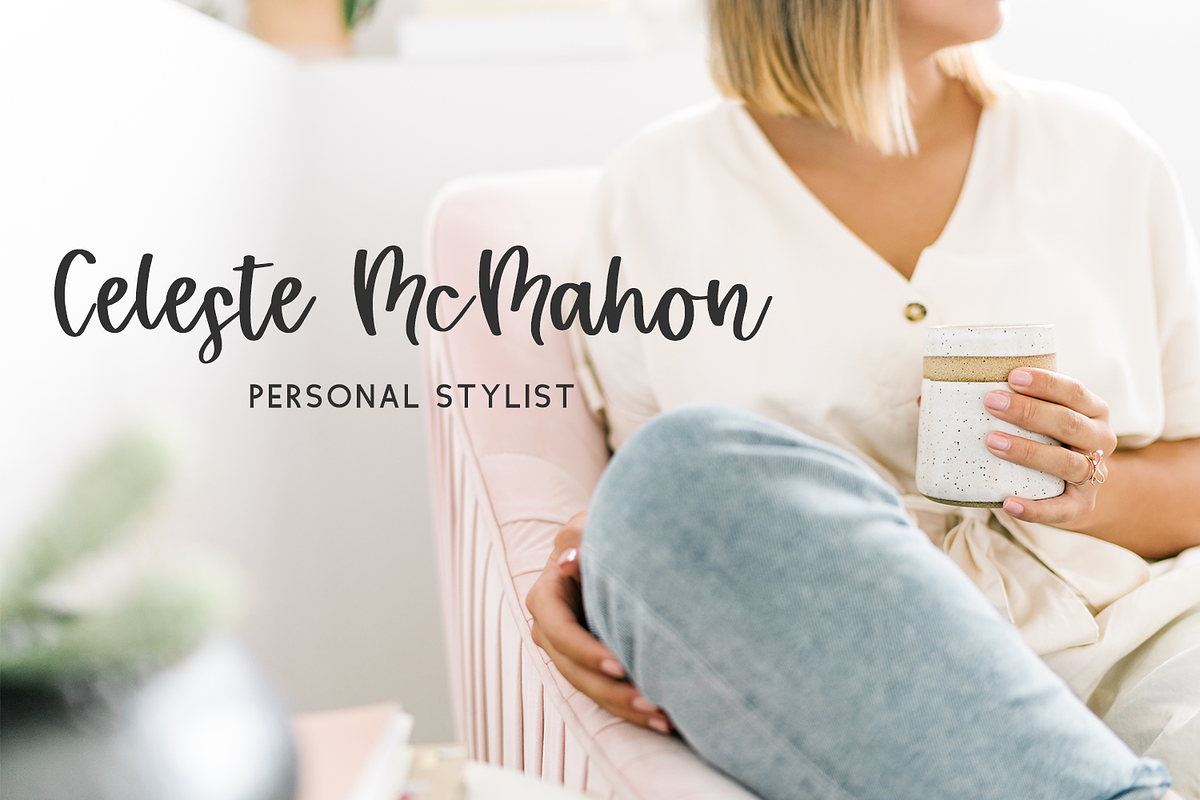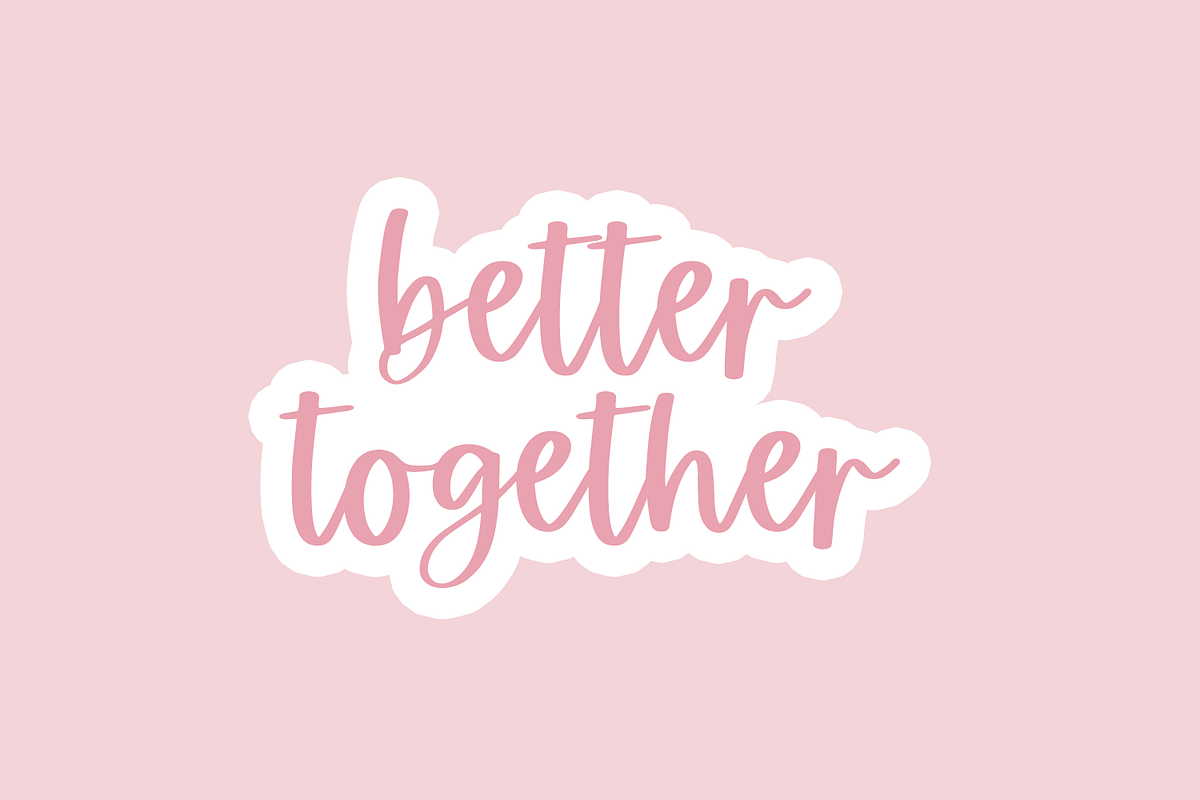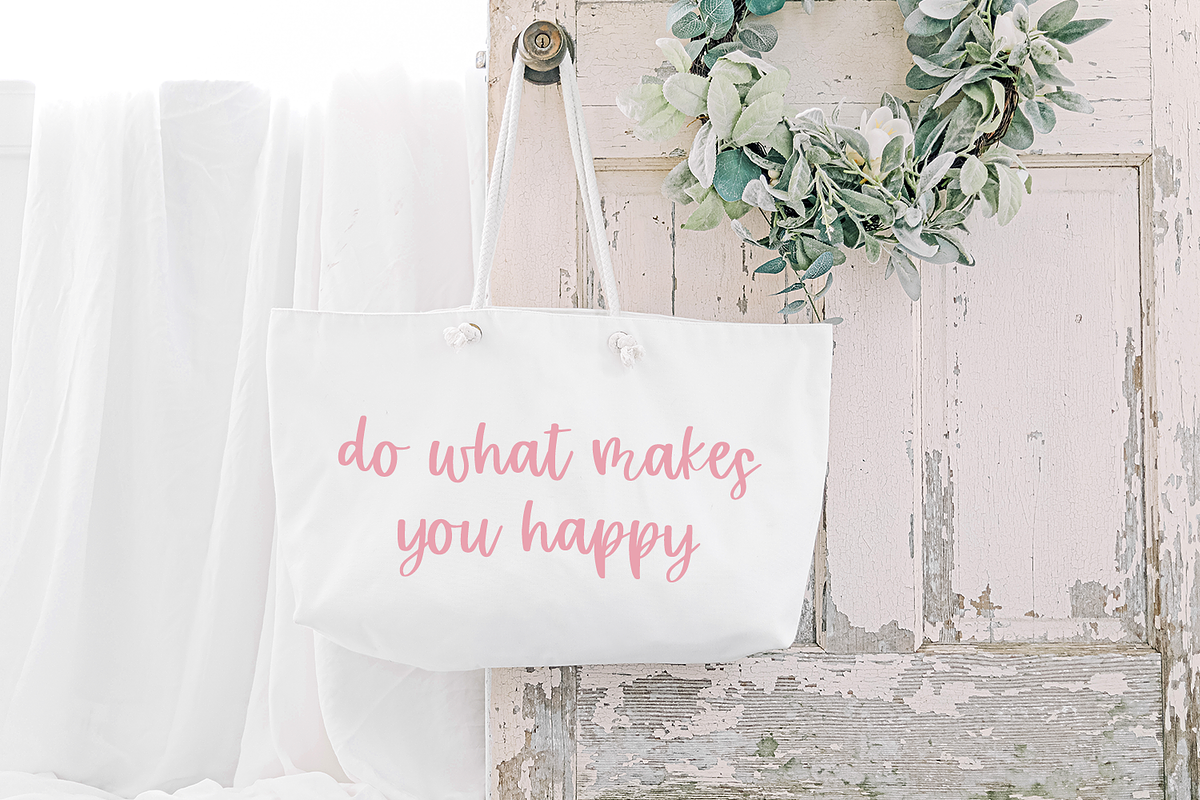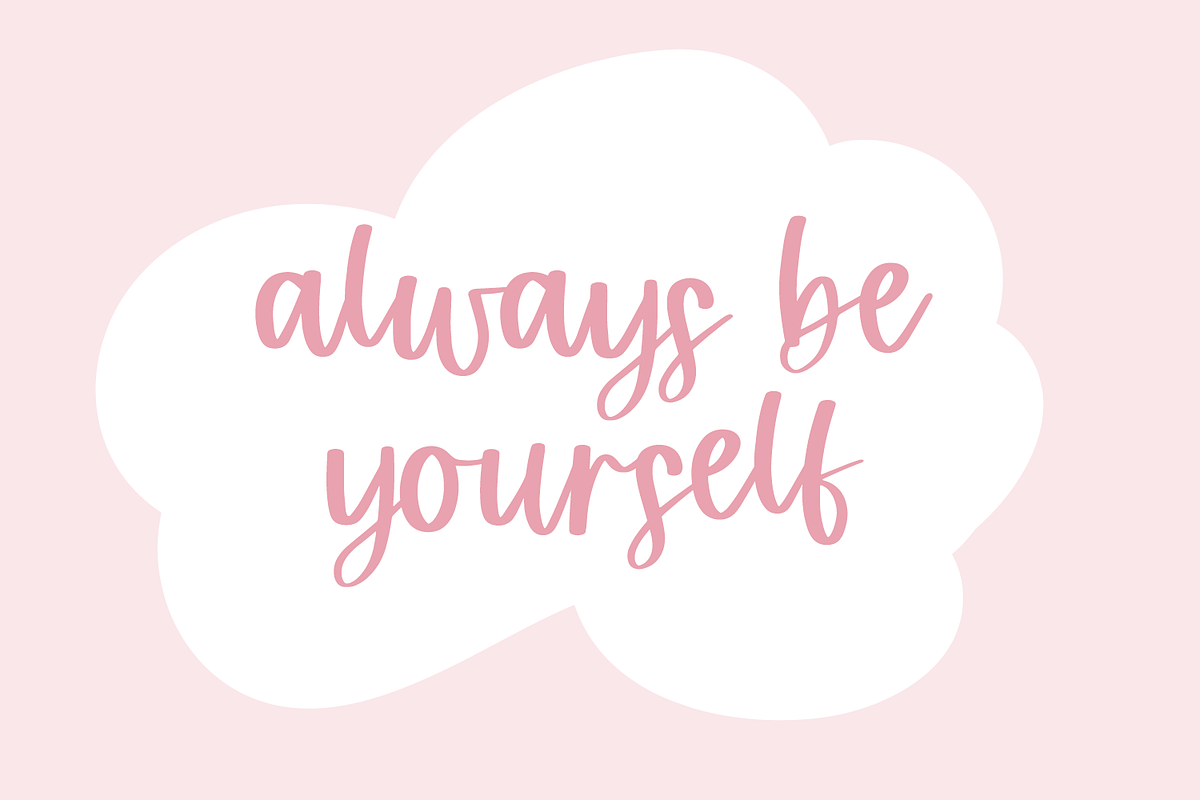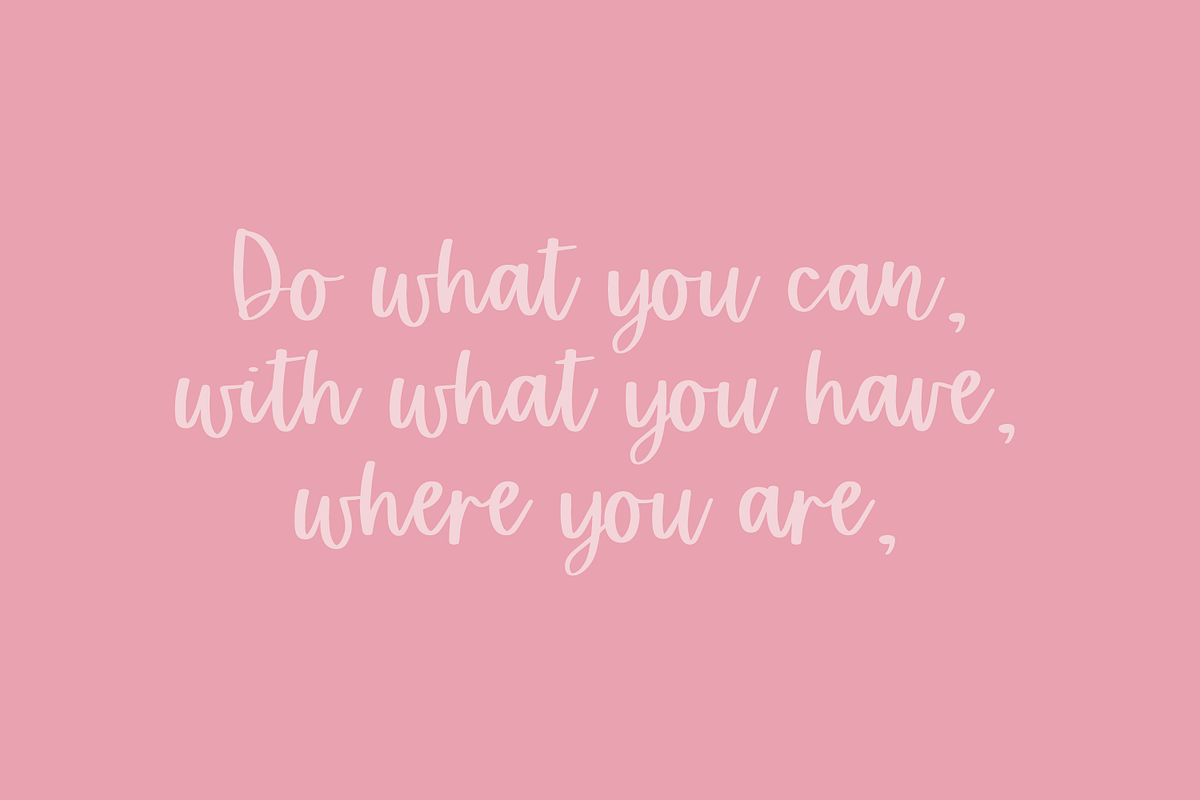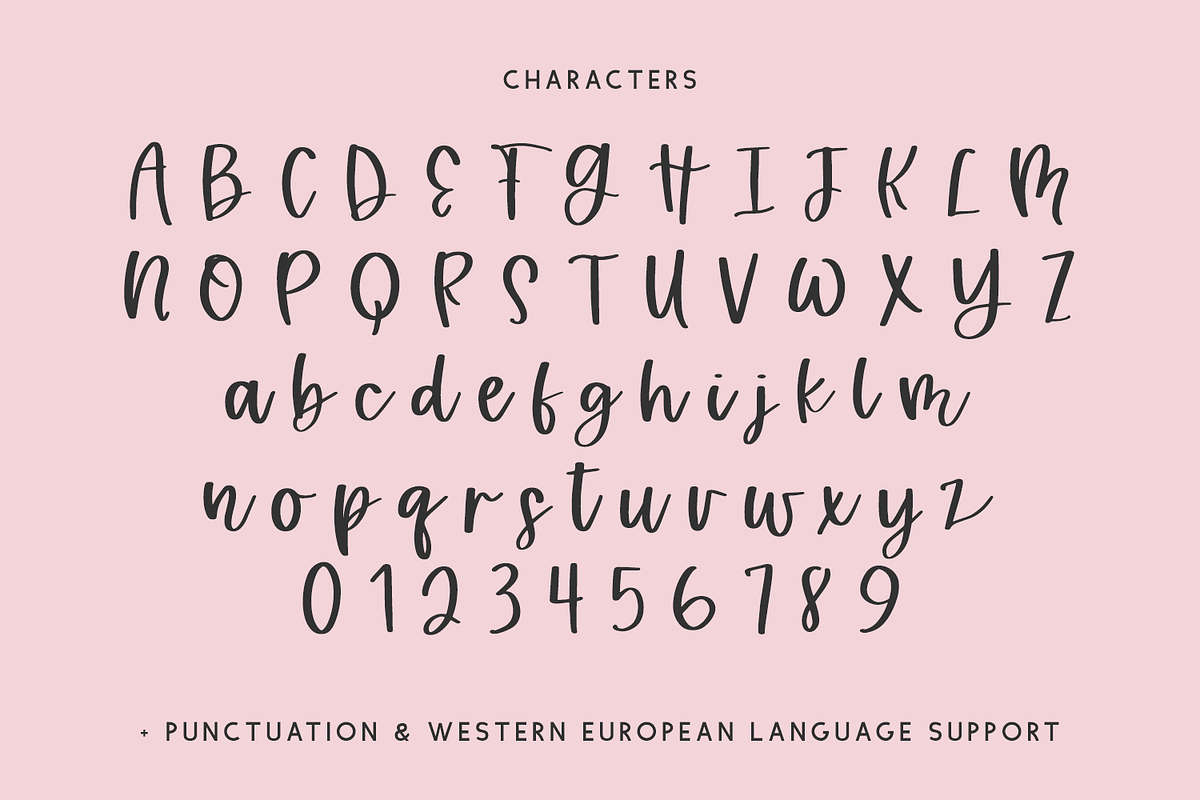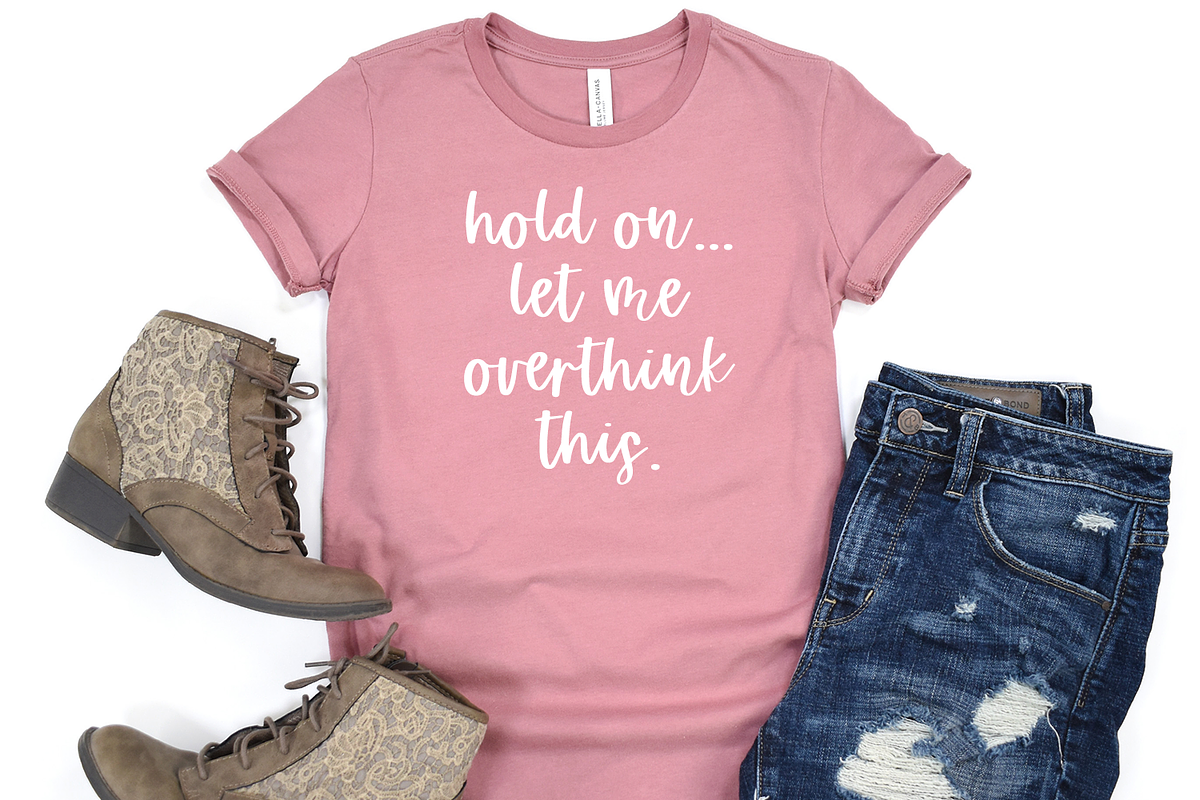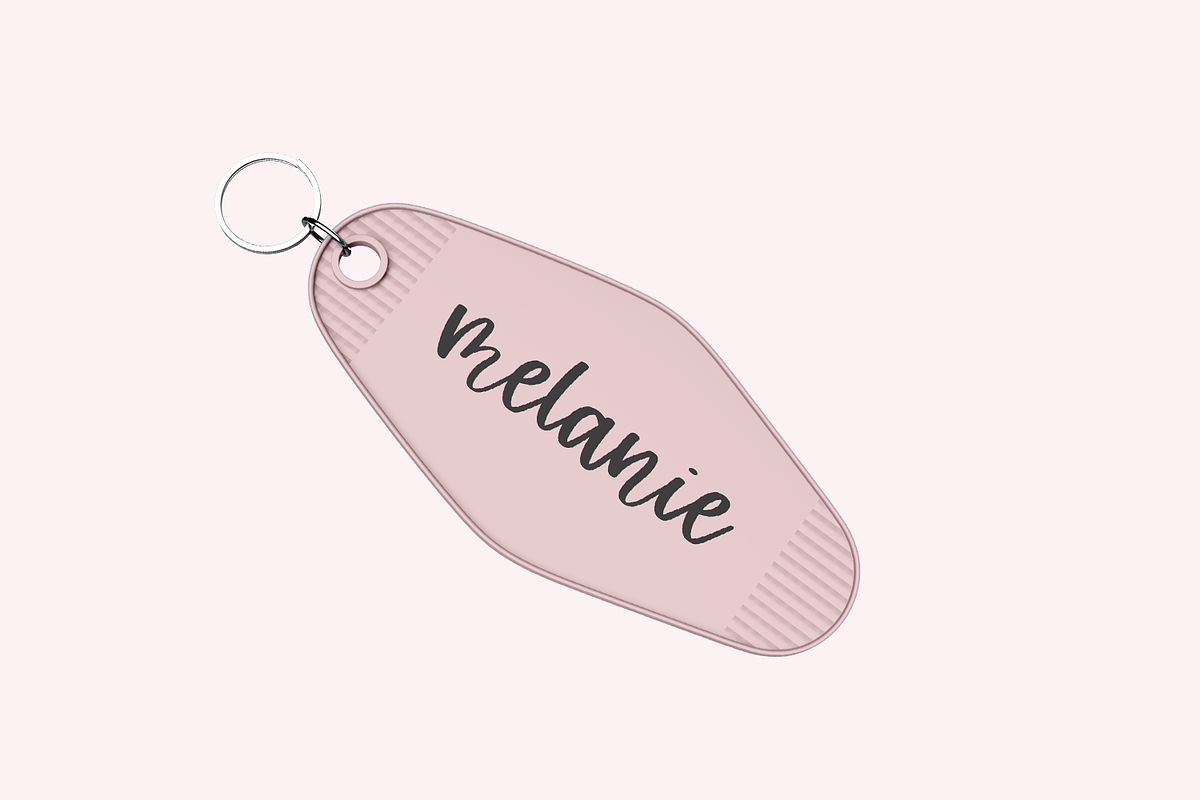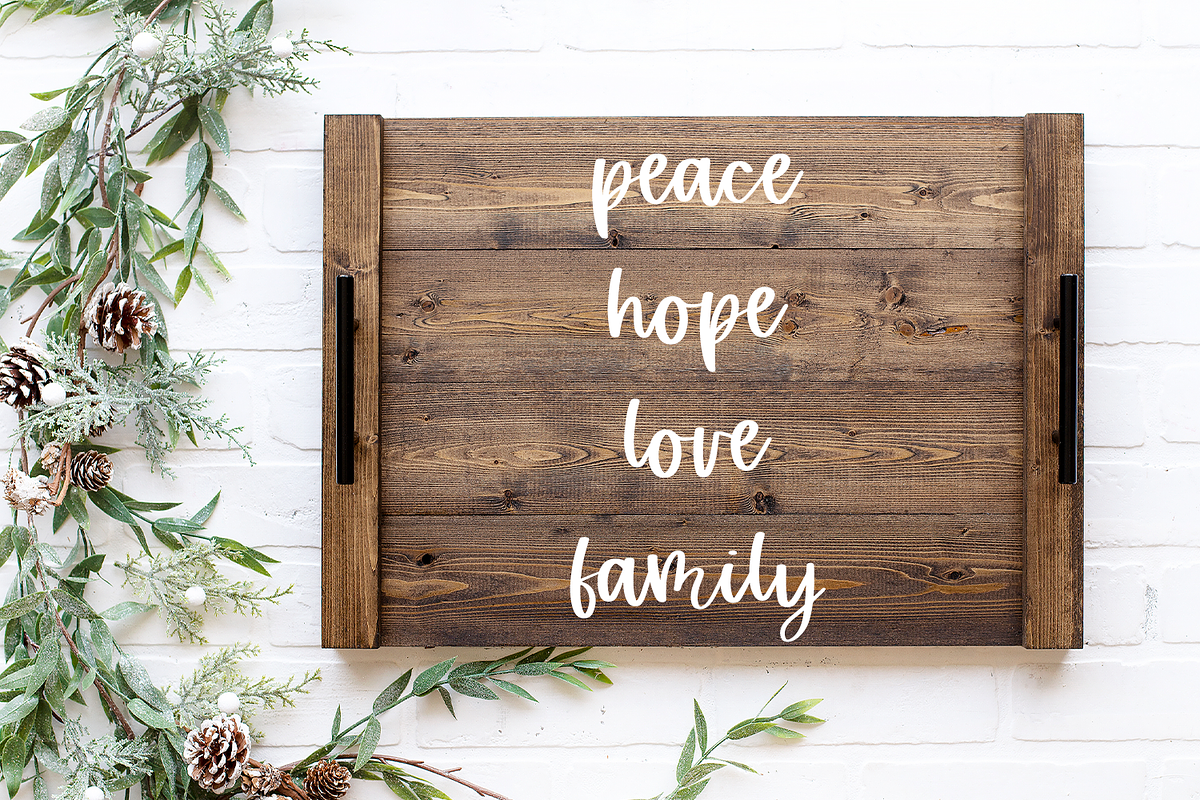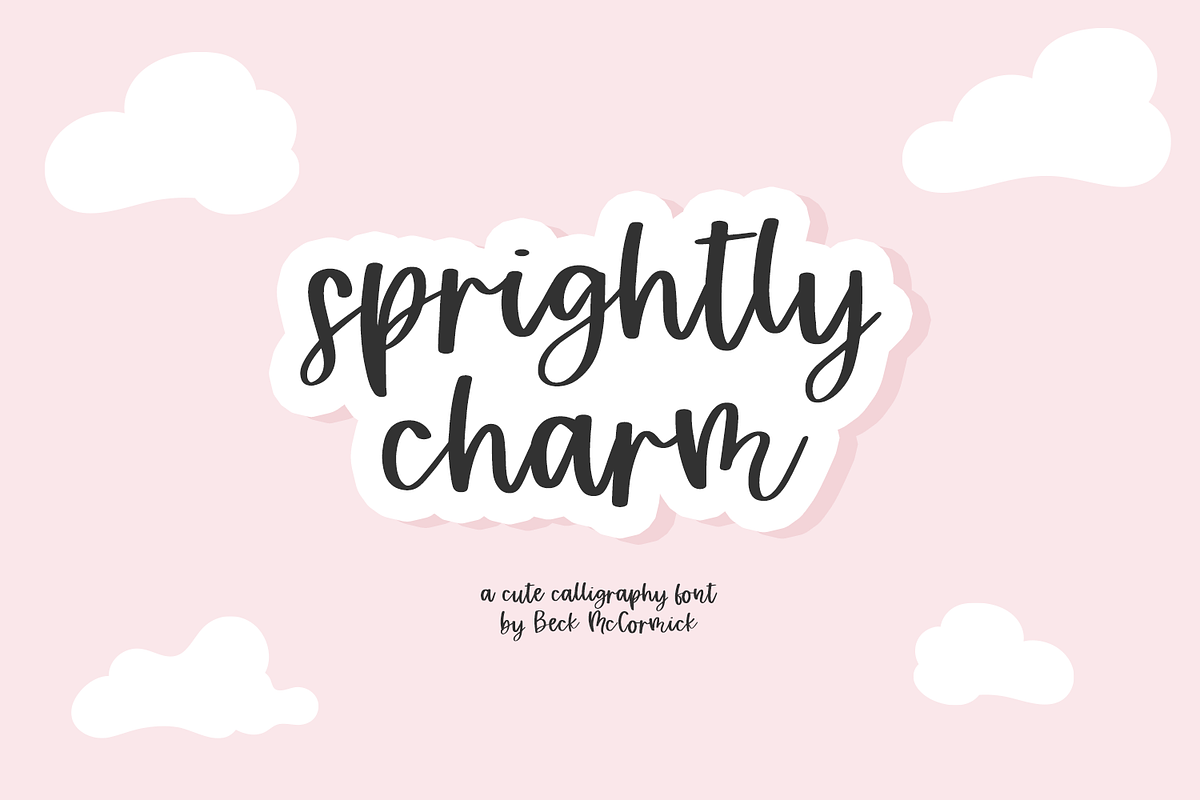
Sprightly Charm Script
Introducing Sprightly Charm, a modern calligraphy font. Sprightly Charm is best for feminine crafty projects or SVG design businesses, farmhouse decor and crafts, logos, branding, marketing materials, social media graphics, or shirt design.
- upper + lowercase characters A-Z and a-z
- numbers 0-9
- punctuation
- Western European Language Support